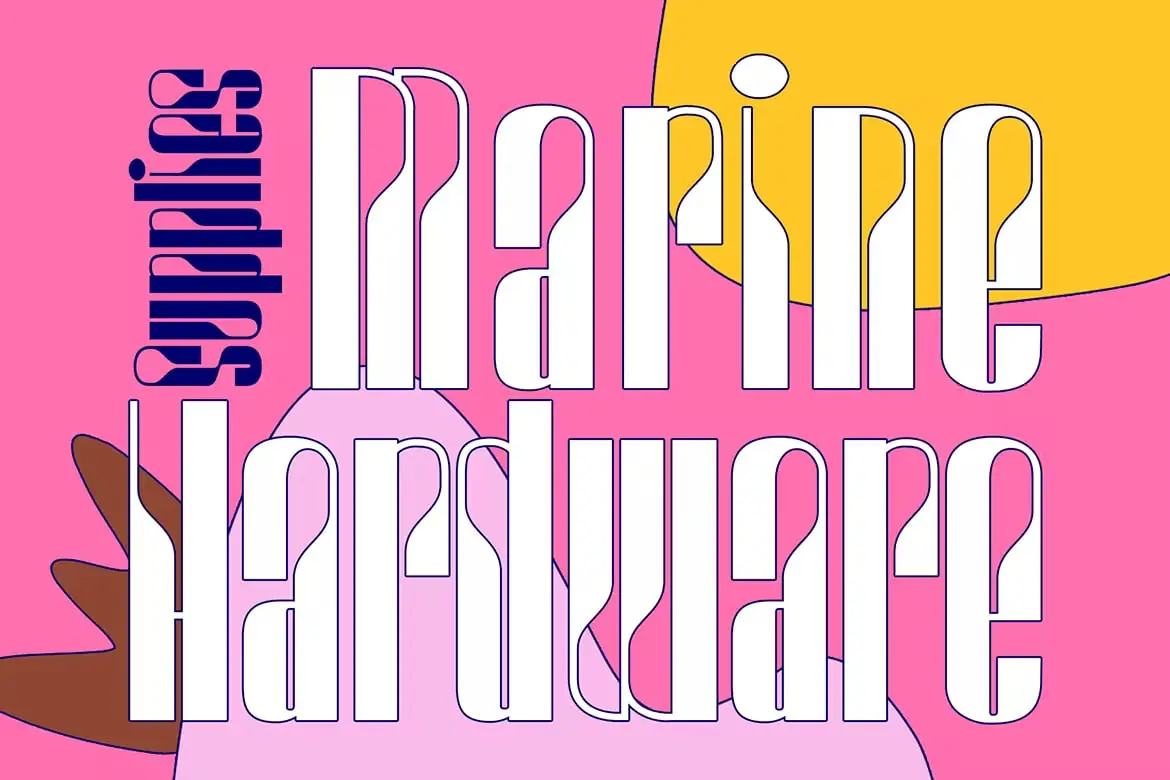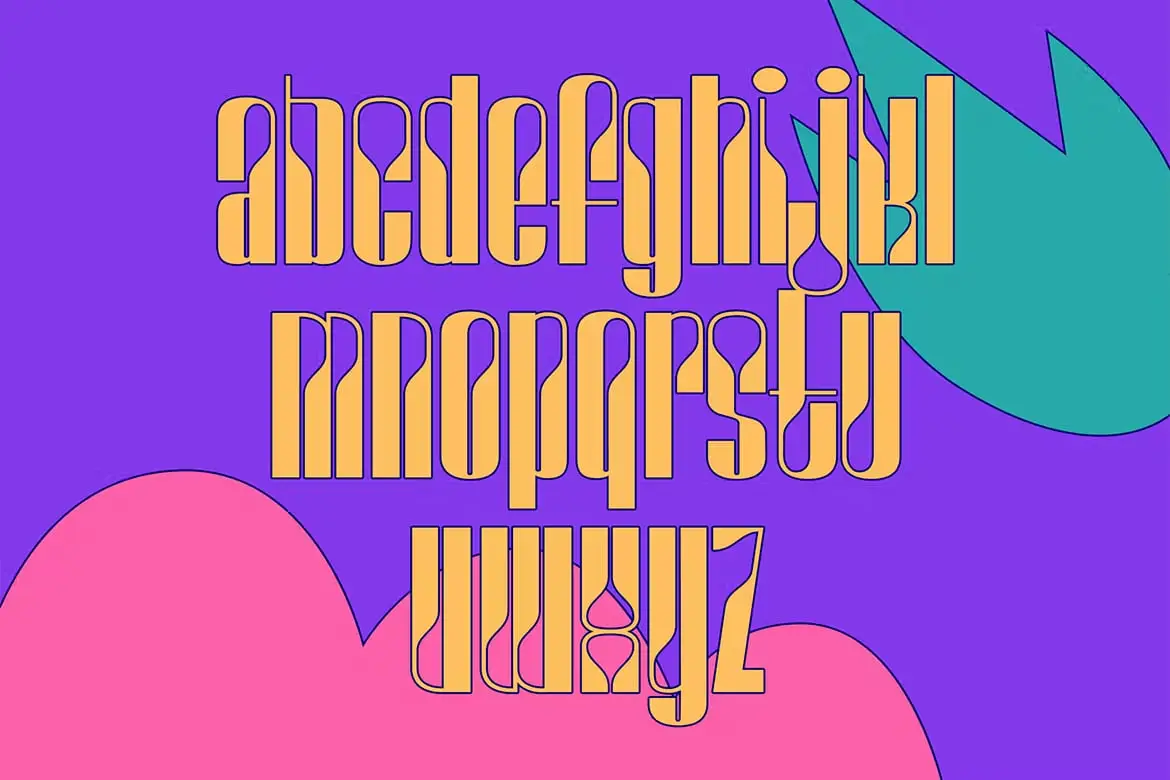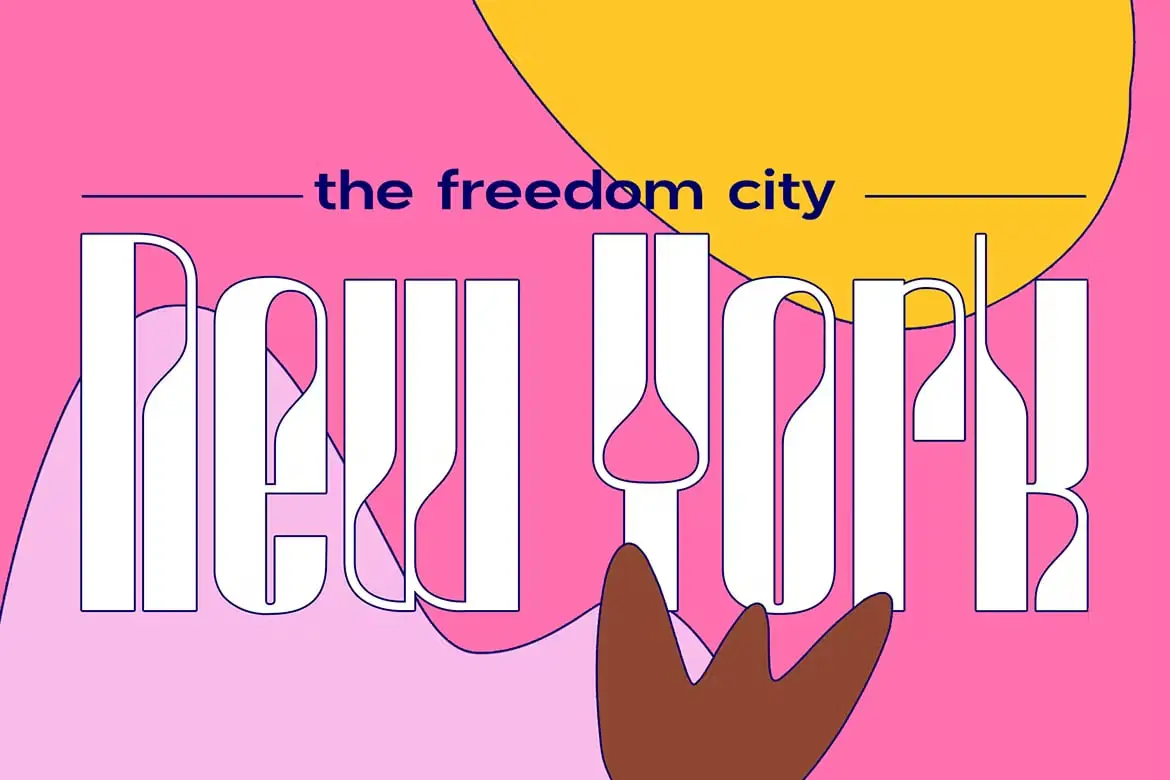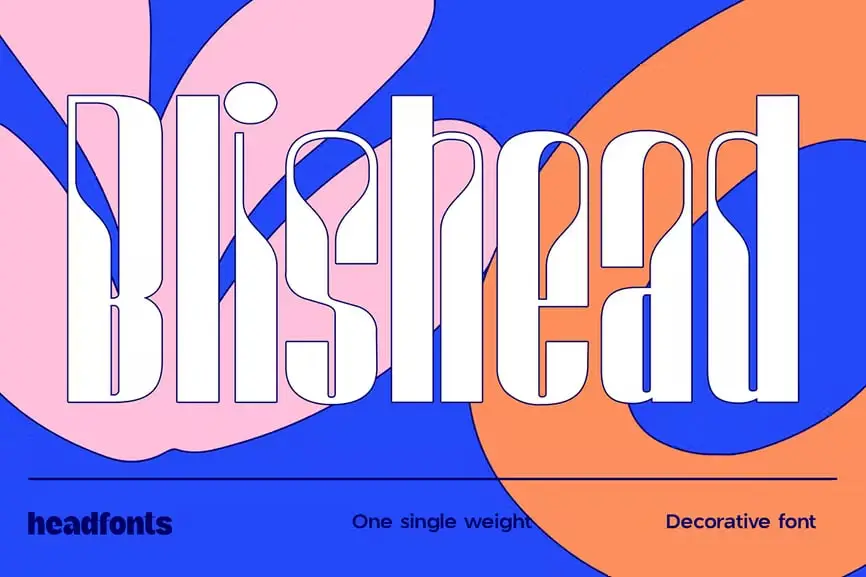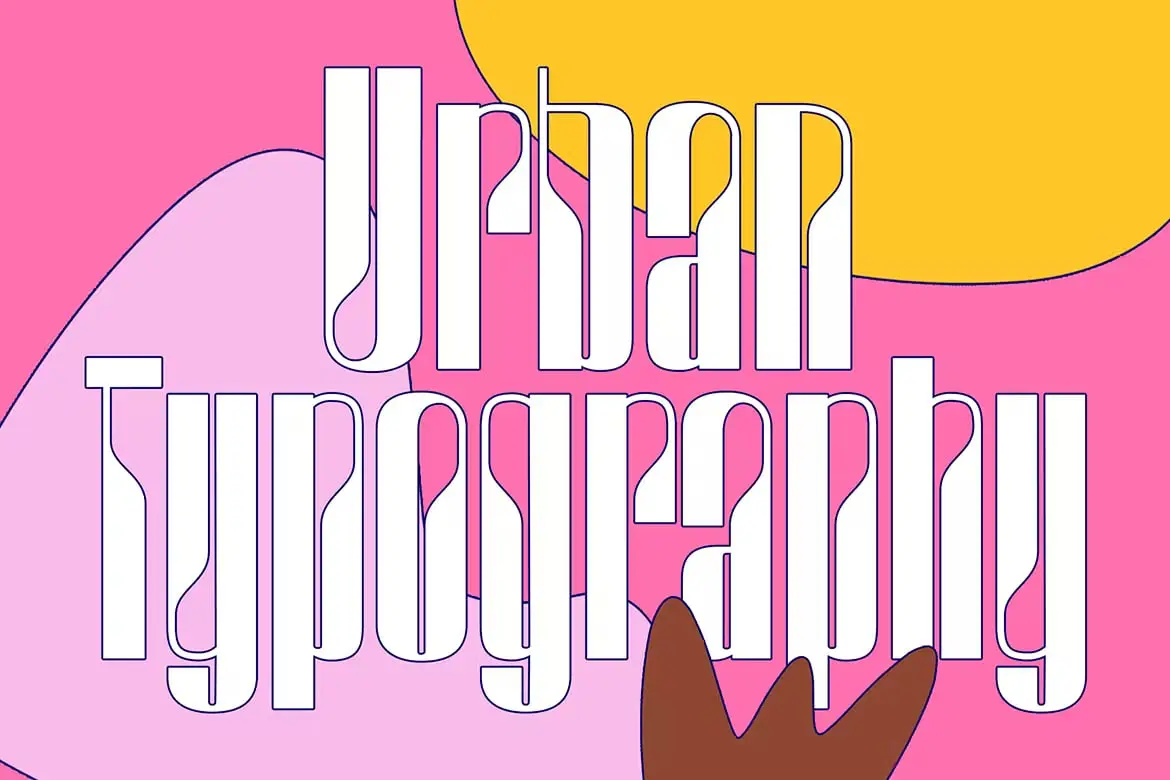
Introducing the Blishead Display Font, a striking typeface designed to make a bold statement in your projects. This font features a unique blend of modern aesthetics and classic influences, making it perfect for a variety of applications.
- Distinctive display style
- Uppercase and lowercase characters
This font is ideal for branding, logos, headlines, posters, and any project where you want to capture attention. Its unique style can elevate your design and create a memorable impression.